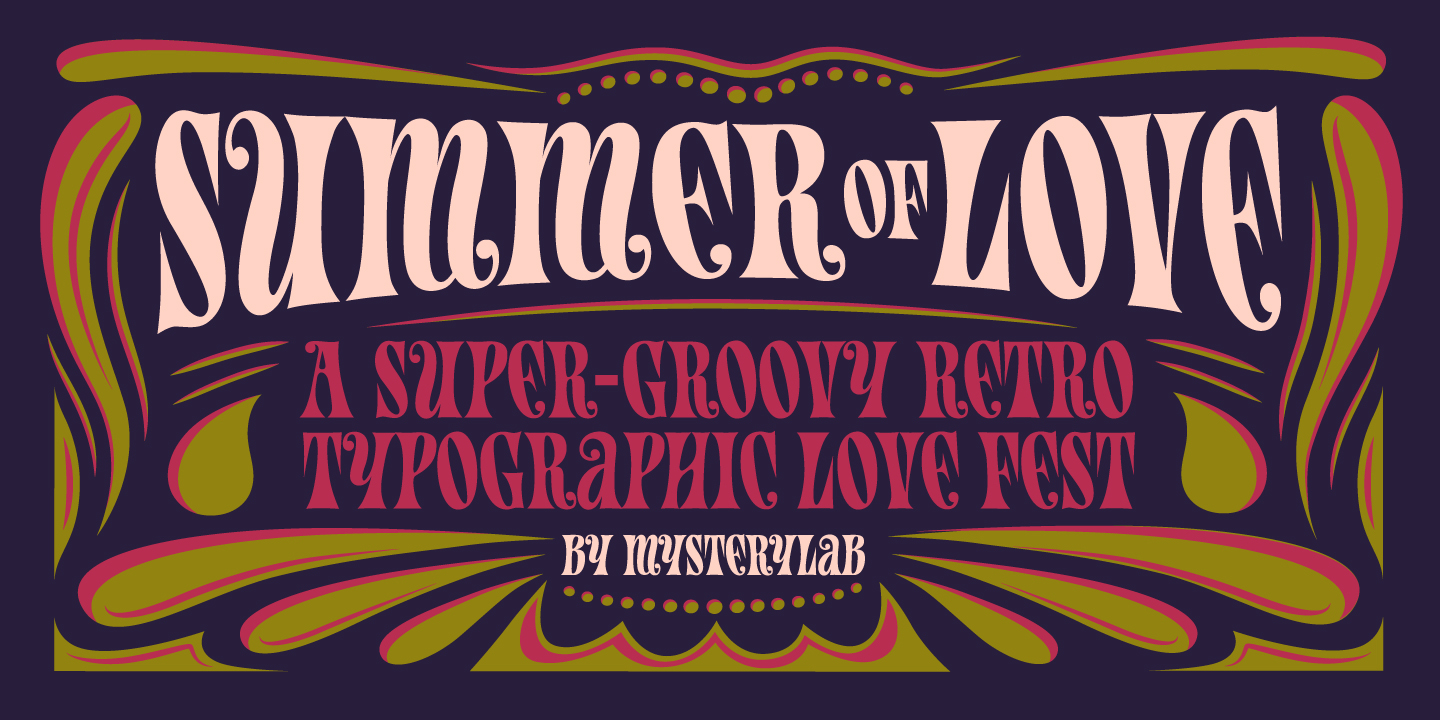
Summer of Love Font Free Download – A Psychedelic Display Typeface with 1960s Flower Power
Take a groovy trip back to 1967 with Summer of Love Font Free Download, a swirling psychedelic typeface that captures the free-spirited energy of the hippie movement. Perfect for music posters, vintage branding, and retro designs, this font drips with peace-and-love personality.
Why Summer of Love Font Stands Out
1. Far-Out Psychedelic Features
Liquid letterform distortions
Custom peace sign & flower glyphs
Vibrant color-separation ready
✔️ Music festival posters
✔️ Retro product packaging
✔️ Vintage apparel designs
✔️ Hippie-inspired branding
✔️ Throwback social media graphics
3. Technical Specs
Includes uppercase A-Z + numerals
Bonus peace & love symbols
Multilingual support (Western Europe)
DIY concert flyers
Vintage travel journals
Retro photo overlays
Personal playlist artwork
Craft beer labels
Record store branding
Festival merchandise
Retro café signage
Designer's Psychedelic Tips
Combine with grainy photo textures
Use neon color gradients
Add halftone dot patterns
36pt+ for maximum impact
Works best with generous tracking
Ideal for short, expressive phrases